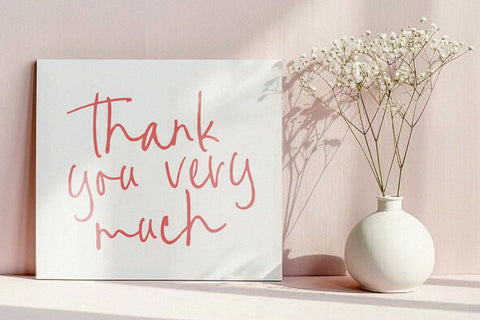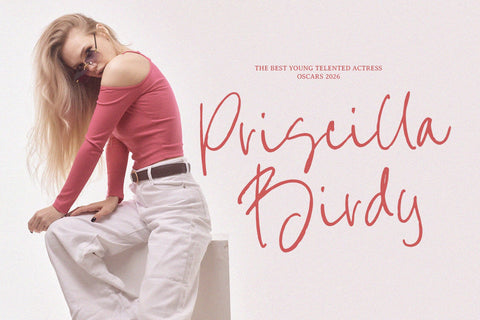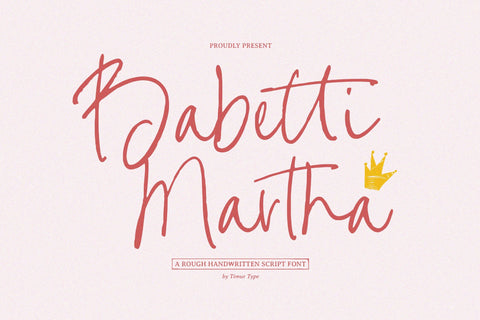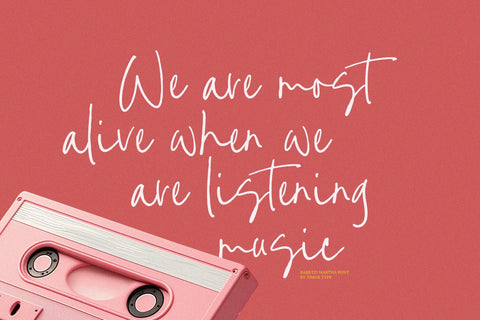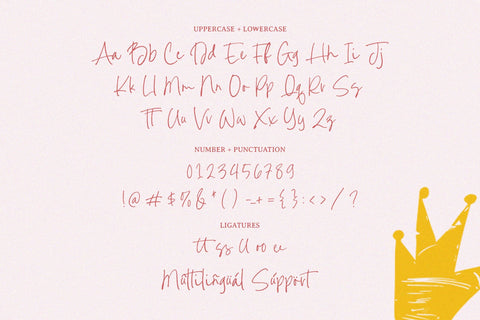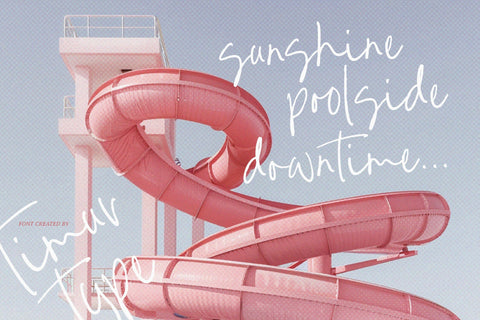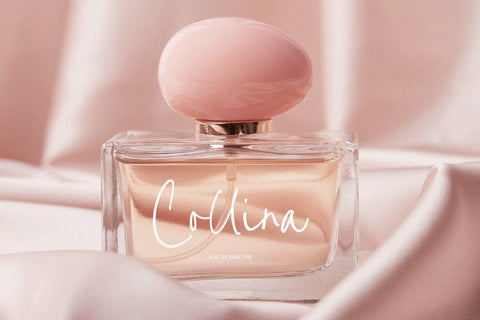
Babetti Martha - Rough Handwritten Script Font
Babetti Martha is a Rough Handwritten Script Font
This font is a distinctive handwritten script font characterized by its rugged, unpolished charm. With its expressive, uneven strokes and dynamic line variations, it captures the essence of spontaneous, personal writing. This font's raw, artistic flair makes it perfect for projects that need a touch of individuality and authenticity, whether for branding, invitations, or creative designs.
- Stylish Ligature
Babetti Martha Font also supports multilingualism